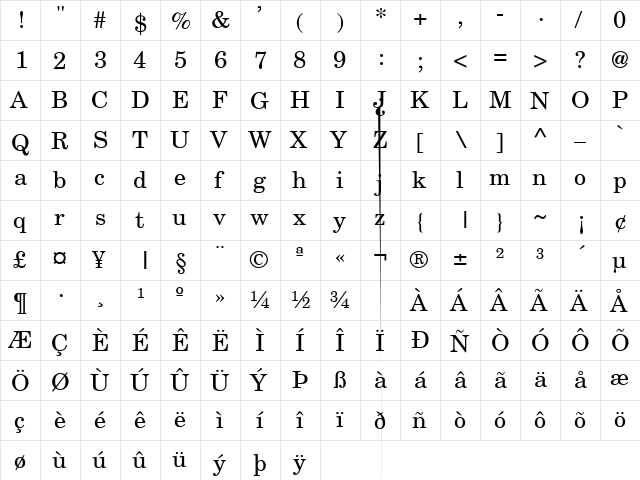
NewBrunswick Regular Font Preview
NewBrunswick Regular
NewBrunswick Regular Font Details
Design Context for NewBrunswick Typeface
NewBrunswick is a composed and adaptable typeface that performs quietly and consistently across a wide range of design contexts.